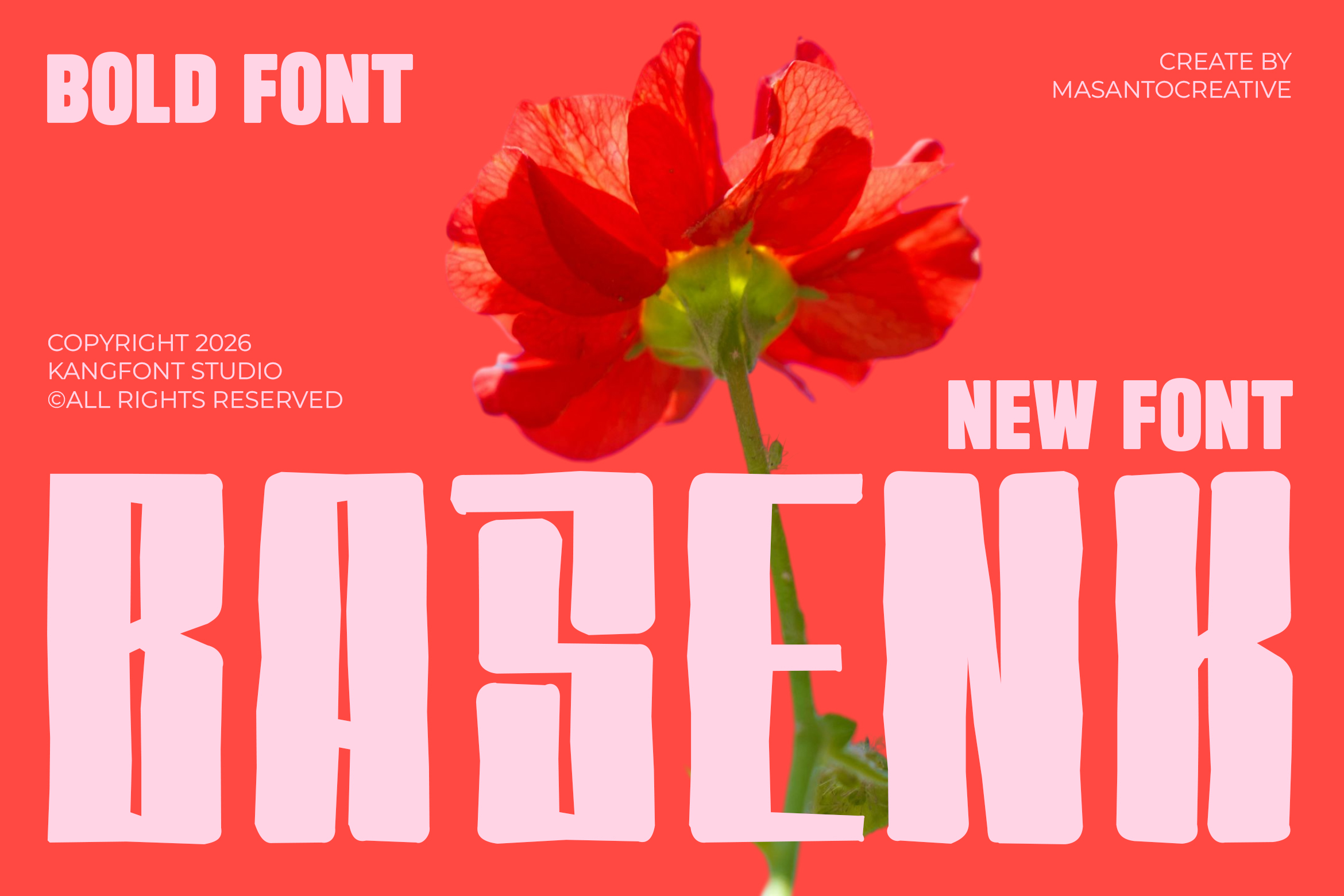
Best Bold Fonts from Kangfont – Top Picks for Creative Design
If you are looking for the best bold fonts for your design projects, Kangfont offers a wide selection of high-quality typefaces that combine creativity, personality, and strong visual impact. Whether you are working on branding, posters, or t-shirt design, choosing the right bold font can make a huge difference.
Bold fonts are essential for grabbing attention. They create strong hierarchy, improve readability, and give your design a confident and modern look. On Kangfont Shop, you can find various bold display fonts, playful sans serif fonts, and expressive typefaces that are perfect for creative work.
🔥 Why Bold Fonts Are Important in Design
Bold fonts are more than just thick letterforms. They are powerful tools for communication.
A bold display font helps:
In modern design, bold typography is widely used in social media, advertising, and streetwear branding. This is why many designers rely on bold fonts to create impactful visuals.
⭐ Top Bold Fonts from Kangfont
Here are some recommended bold fonts you can find on Kangfont:
1. Boldino – Playful Bold Sans Serif Font
Boldino is a fun and energetic bold sans serif font. It features thick shapes and a playful style that works perfectly for modern branding and creative projects.
This font is ideal for:
If you need a bold font that feels friendly and expressive, Boldino is a great choice.
2. Bront-Olo – Retro Groovy Bold Display Font
Bront-Olo brings a retro vibe with bold and groovy letterforms. Its unique style makes it perfect for vintage-inspired designs and creative branding.
Best use cases:
This font stands out with its strong personality and nostalgic feel.
3. Blankon – Display Font
Blankon is a bold display font with a clean yet powerful look. It is versatile and suitable for various design needs.
Perfect for:
Its simplicity makes it easy to combine with other fonts.
4. Blunder – Display Font
Blunder is a bold display font with a more experimental and playful style. It is perfect for designers who want something different and eye-catching.
Recommended for:
5. Foobie Sans – Modern Display Sans Serif
Foobie Sans is a modern bold sans serif font with a clean and stylish appearance. It offers a balance between boldness and readability.
Best for:
6. Basenk – Bold Organic Playful Display Font
Basenk Sans is a bold and playful display font with a unique organic touch. Designed with an irregular hand-drawn feel, this font brings strong personality and expressive character to any design project. With its chunky shapes and slightly imperfect edges, Basenk Sans creates a lively and modern look that stands out instantly. It comes with stylistic alternates and ligatures, allowing you to explore more creative typography combinations and build distinctive visual identities. This font is perfect for projects that need a bold and fun appearance, such as posters, branding, packaging, social media graphics, headlines, and merchandise design.
Best for:
🎯 How to Choose the Right Bold Font
Choosing the right bold font depends on your project goals. Here are some tips:
Each font has its own personality, so make sure it matches your design concept.
👕 Best Use Cases for Bold Fonts
Bold fonts from Kangfont are highly versatile and can be used in many projects:
These fonts are especially popular in streetwear and modern branding because of their strong visual presence.
By using fonts from Kangfont, you can:
💥 Final Thoughts
Bold fonts are a key element in modern design, and Kangfont provides a wide range of options to explore. From playful sans serif fonts like Boldino to retro styles like Bront-Olo, there is something for every creative need.
If you want to create strong, eye-catching, and professional designs, investing in high-quality bold fonts is the right step.